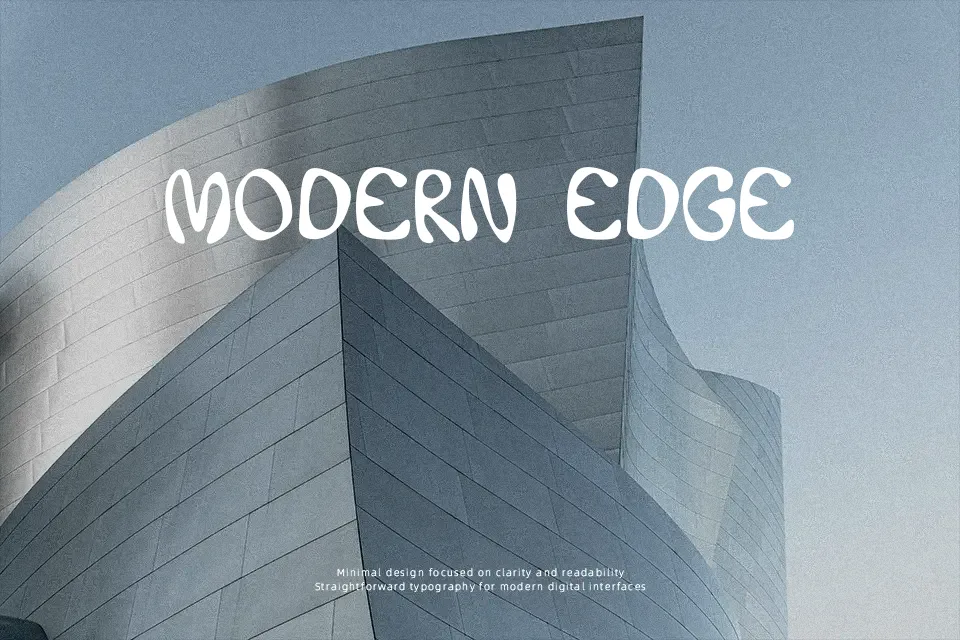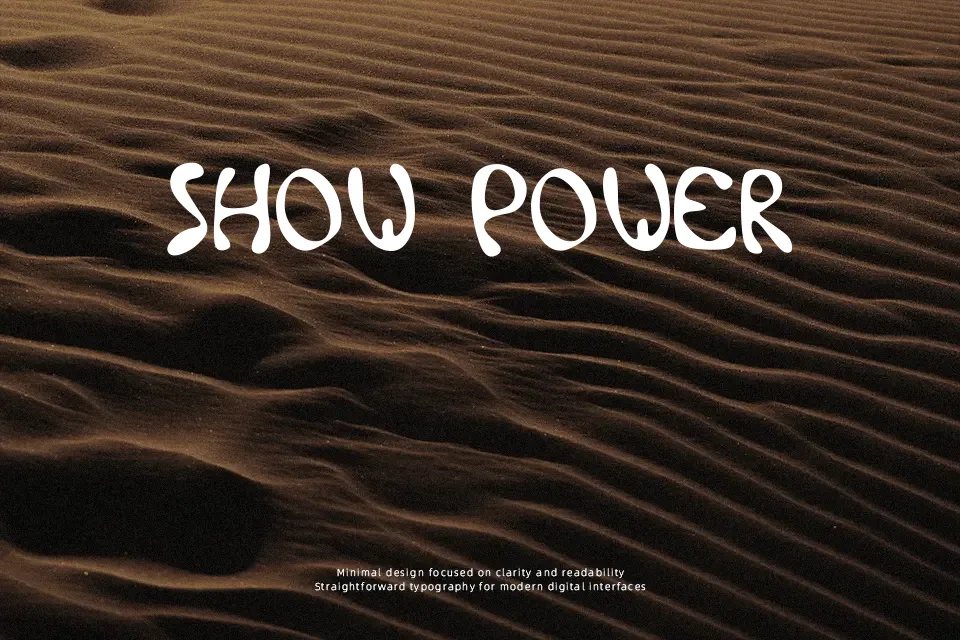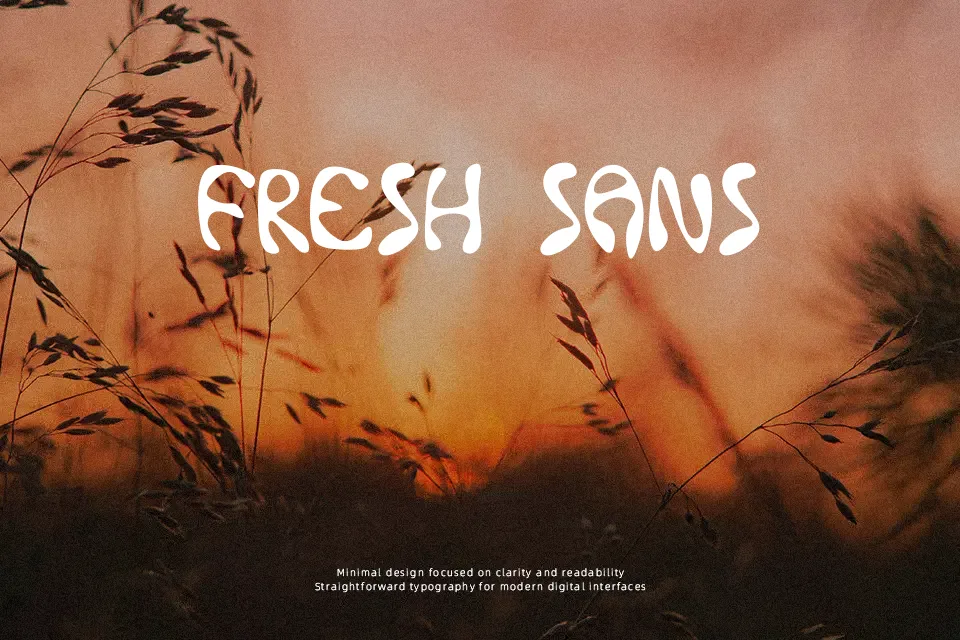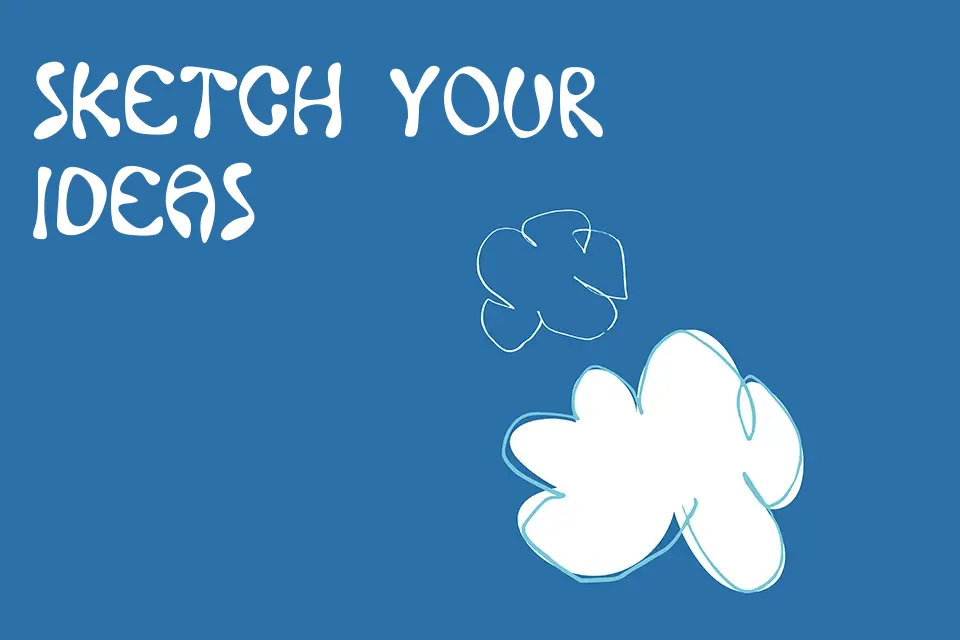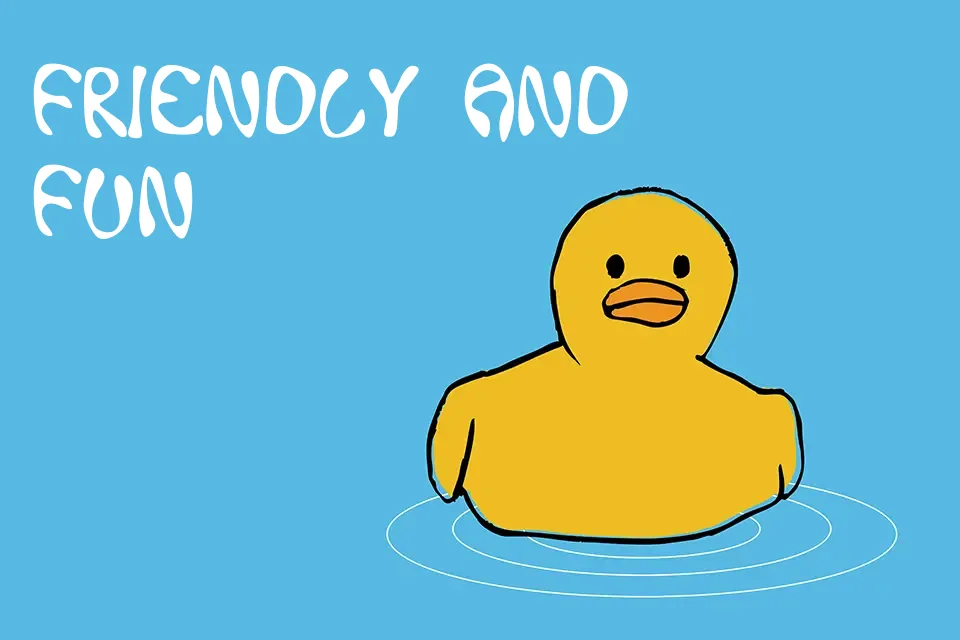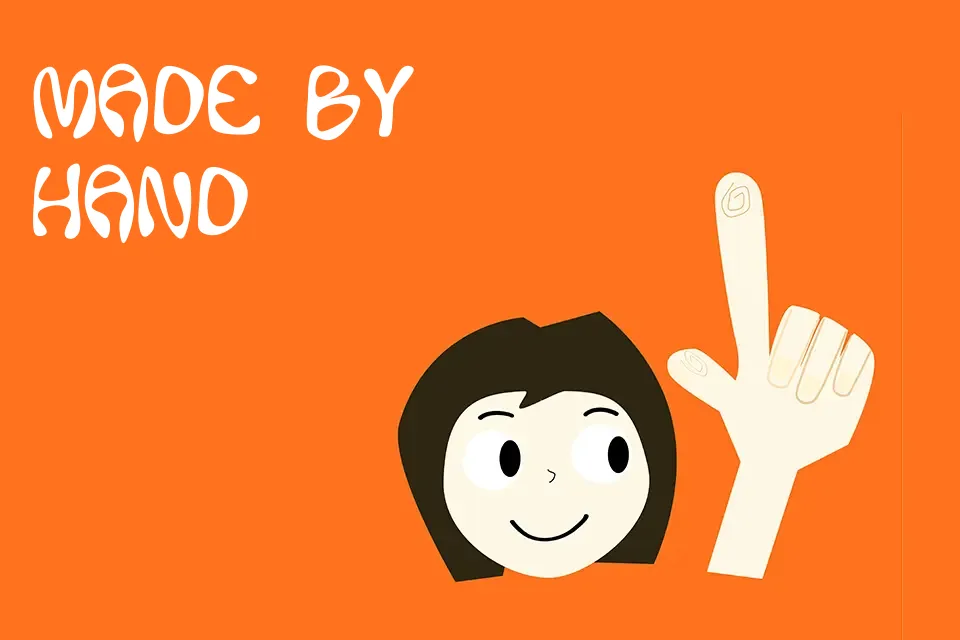
Ace Crickey Font
Ace Crickey carries the kind of loose, energetic line quality you’d expect from hand-lettered signage — strokes are uneven by design, giving each character a spontaneous, drawn-on-the-spot feel. Spacing is generous enough to keep things readable at headline sizes, but the casual construction means contrast is low and letter shapes can feel inconsistent if you look closely. It suits event posters, indie game titles, or youth brand headers where personality matters more than polish. That said, don’t count on it for anything requiring tight typographic control — body text, formal packaging, or professional business materials would expose its roughness rather than celebrate it. Where it genuinely works is in short bursts of copy where the handmade quality adds charm rather than confusion.
– Youth event posters and flyer headers
– Indie game or mobile app title screens
– Casual food and beverage brand labels
– Social media graphics targeting younger audiences
– Body text or multi-line reading environments
– Corporate or formal branding materials
– Small-size applications where stroke irregularity reduces legibility
– High-end product packaging requiring visual precision
Perfect for gaming, kids, and logo, with a creative and cartoon style.